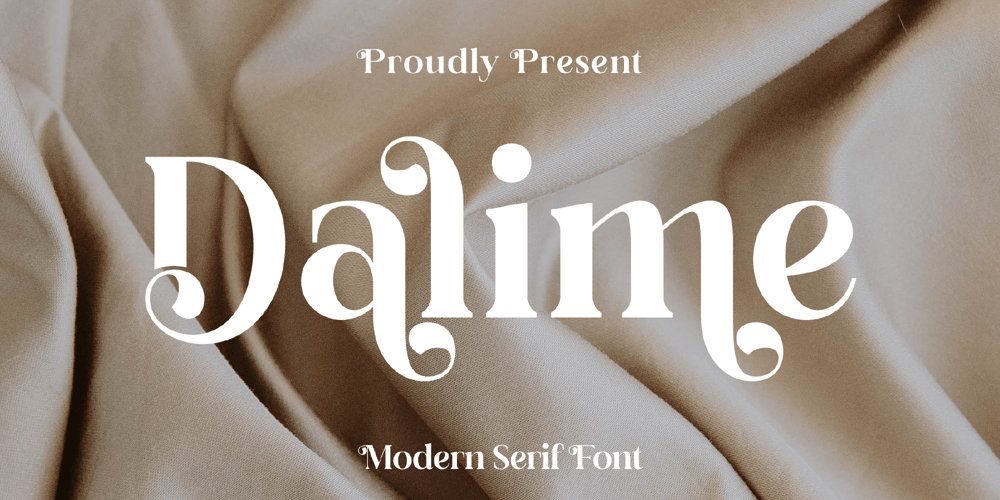
Dalime Font Family was designed by Heru Utama Putra and published by Letterena Studios. Dalime contains 2 styles and family package options. Dalime is an elegant and stylish serif font. It is PUA encoded which means you can access all of the glyphs and swashes with ease! Fall in love with its incredibly versatile style and use it to create spectacular designs!